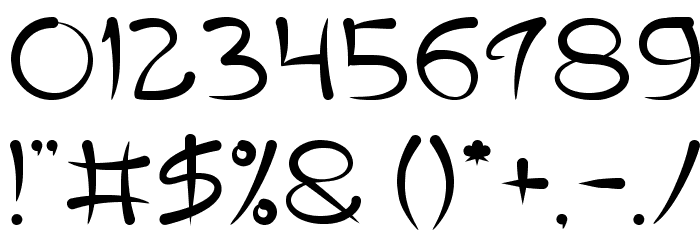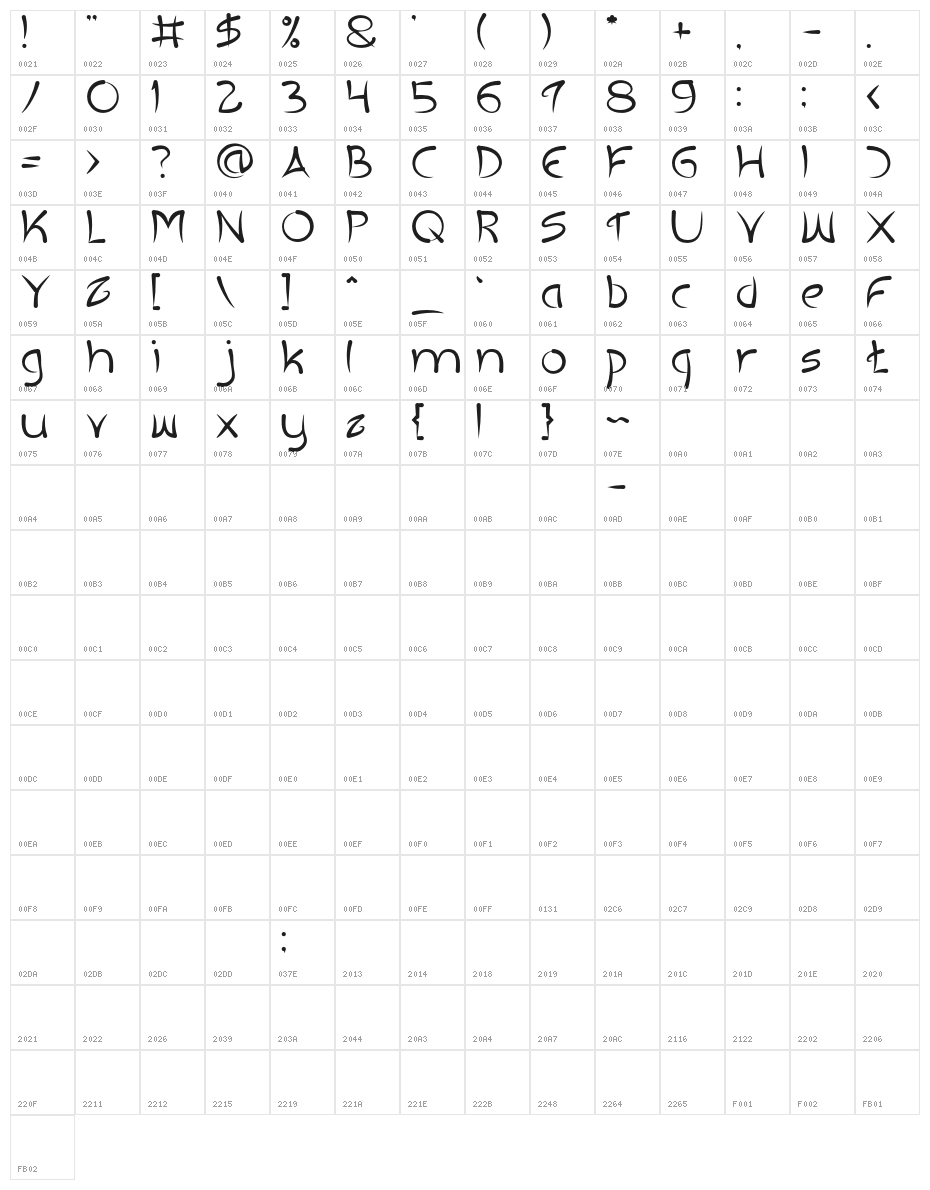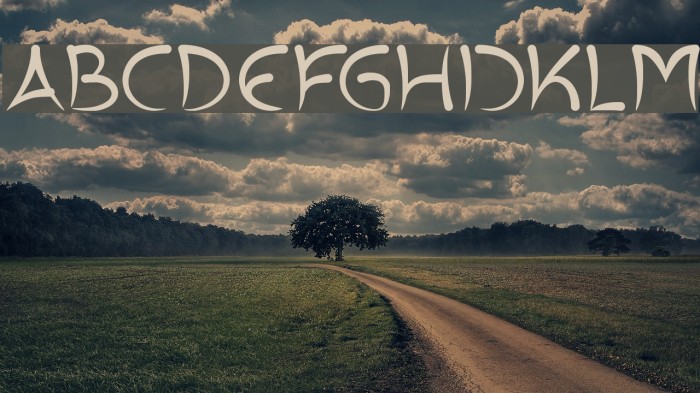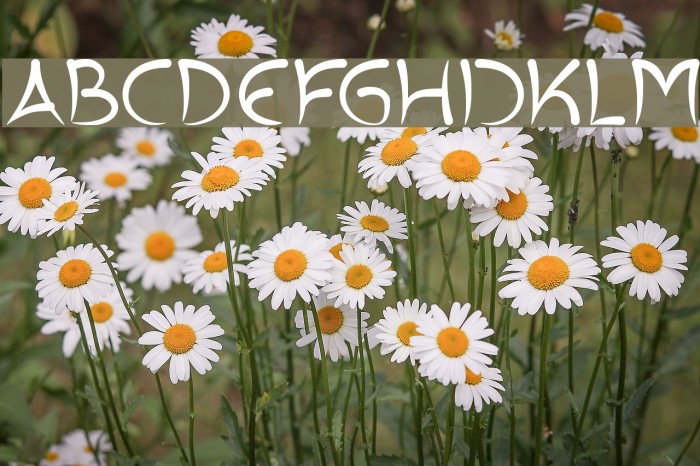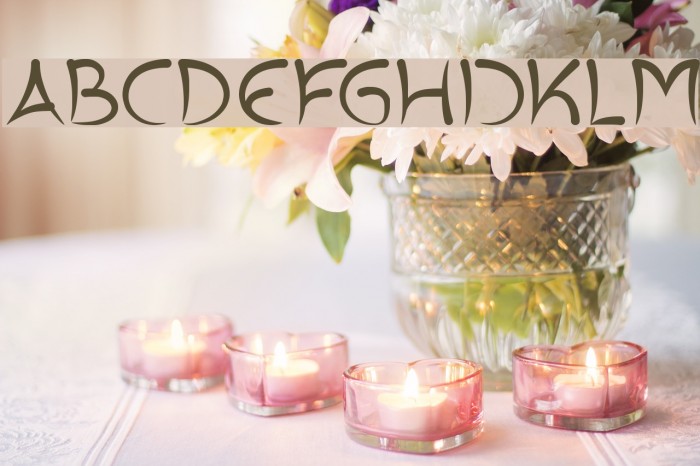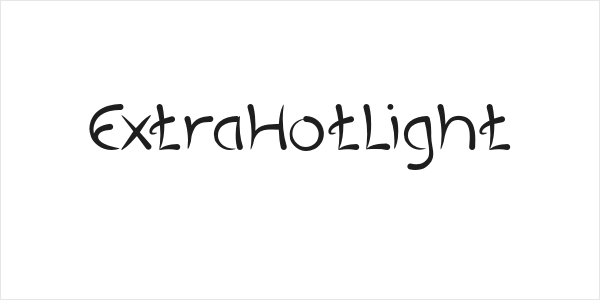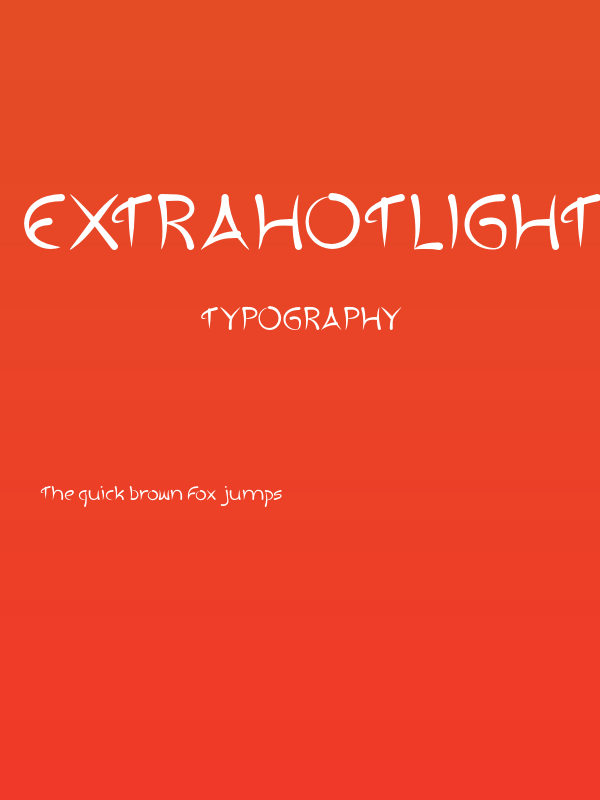
ExtraHotLight Font
ExtraHotLight Description
This font features a playful and dynamic style with a handwritten appearance. The letters are characterized by their fluid, curvy lines and slightly exaggerated strokes, giving them a whimsical and artistic feel. The uppercase and lowercase letters maintain a consistent style, with a slight slant that adds to the casual, informal vibe. The numbers and special characters follow the same design principles, ensuring uniformity across all elements. This font's unique style makes it stand out, offering a creative and lively option for various design projects.
Use CaseLogos, Headlines, Creative projects
Proposed ProjectsIdeal for creative projects such as greeting cards, invitations, children's books, and playful branding.